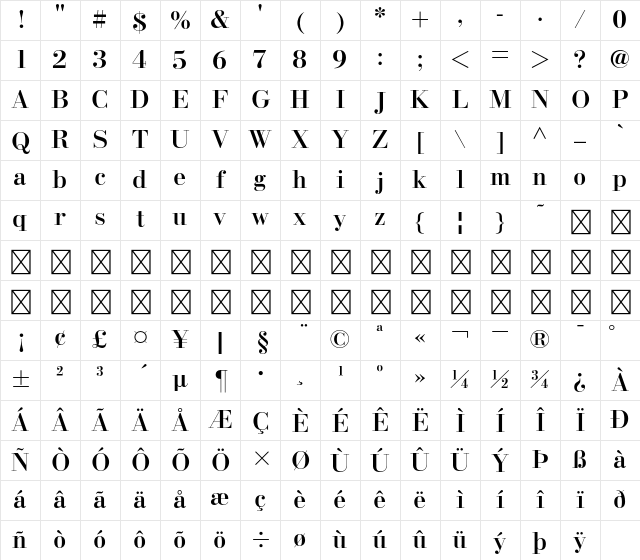
A-OTF Kocho Std Heavy Free Font
A-OTF Kocho Std Heavy
Designer: Ikko Tanaka
Design Context for A-OTF Kocho Std
A-OTF Kocho Std is a composed and adaptable typeface that performs quietly and consistently across a wide range of design contexts.
Pro Tip: Use A-OTF Kocho Std in both headline and body roles to test its range before committing to a single application.